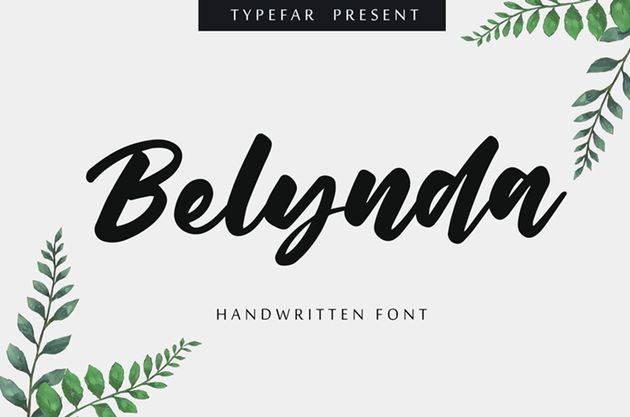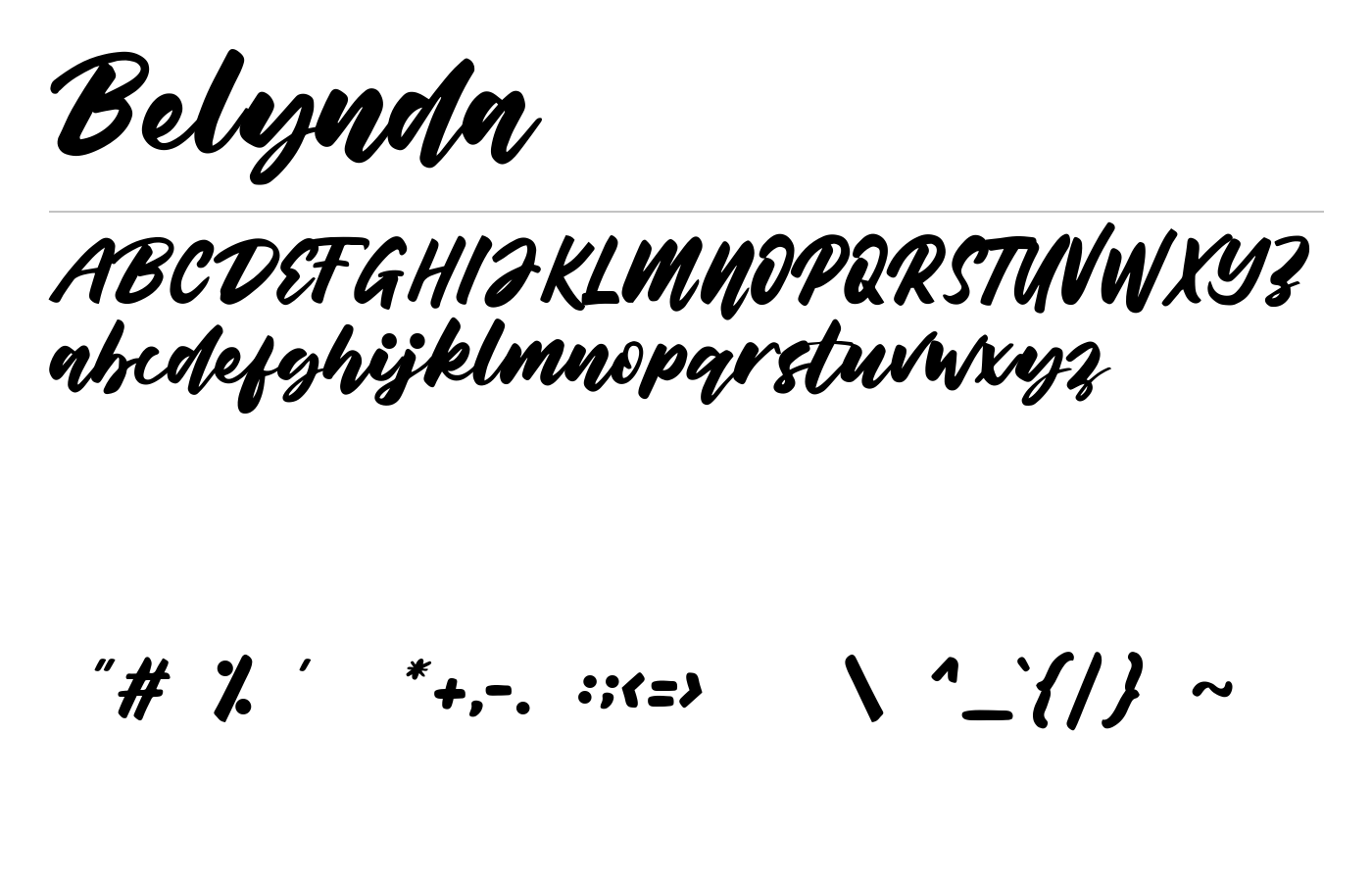
Belynda Script is a bold, energetic script font with a casual yet confident flow, featuring smooth, rounded strokes and a lively brush-like texture. Its dynamic style and strong presence make it ideal for eye-catching logos, branding, and headlines that need a friendly, approachable touch with a modern flair. Perfect for creative projects that want to communicate warmth and personality while maintaining clarity and impact.
Belynda Script Font
About Belynda Script Font
| Font family | Belynda Script Font |
| Designer | Fahrul Arjianto |